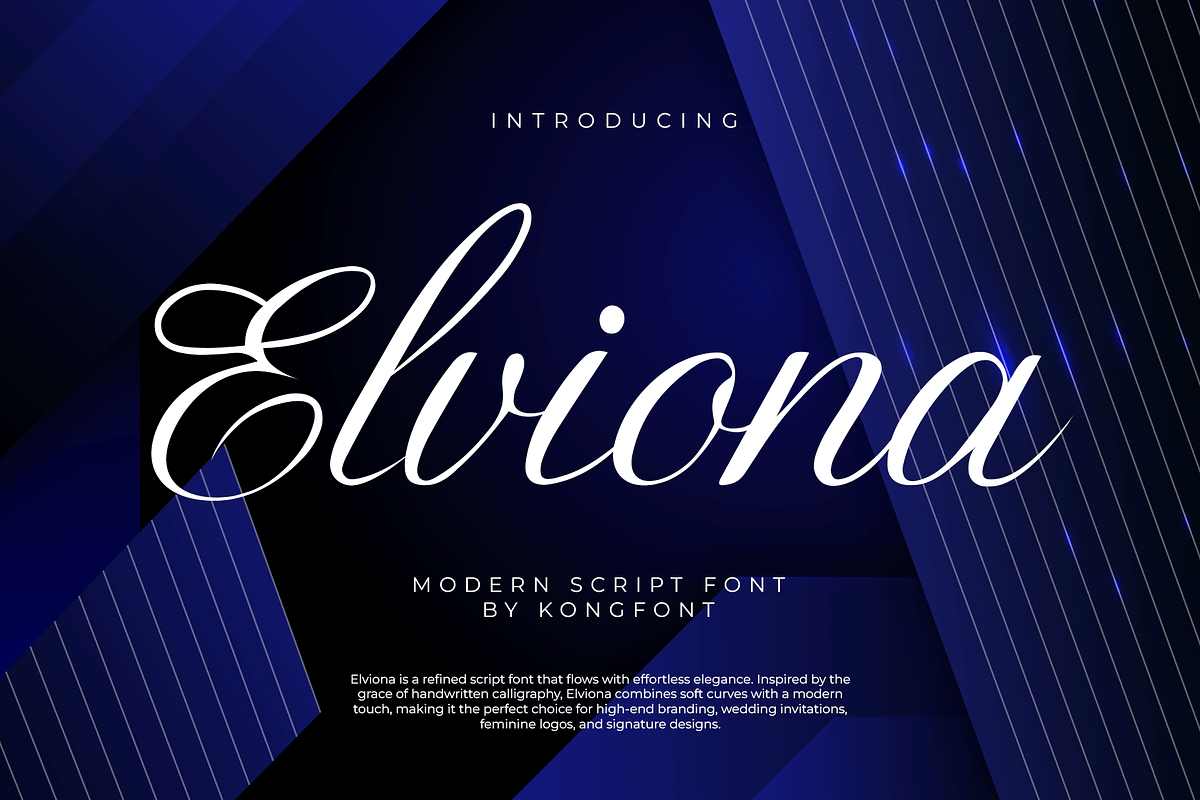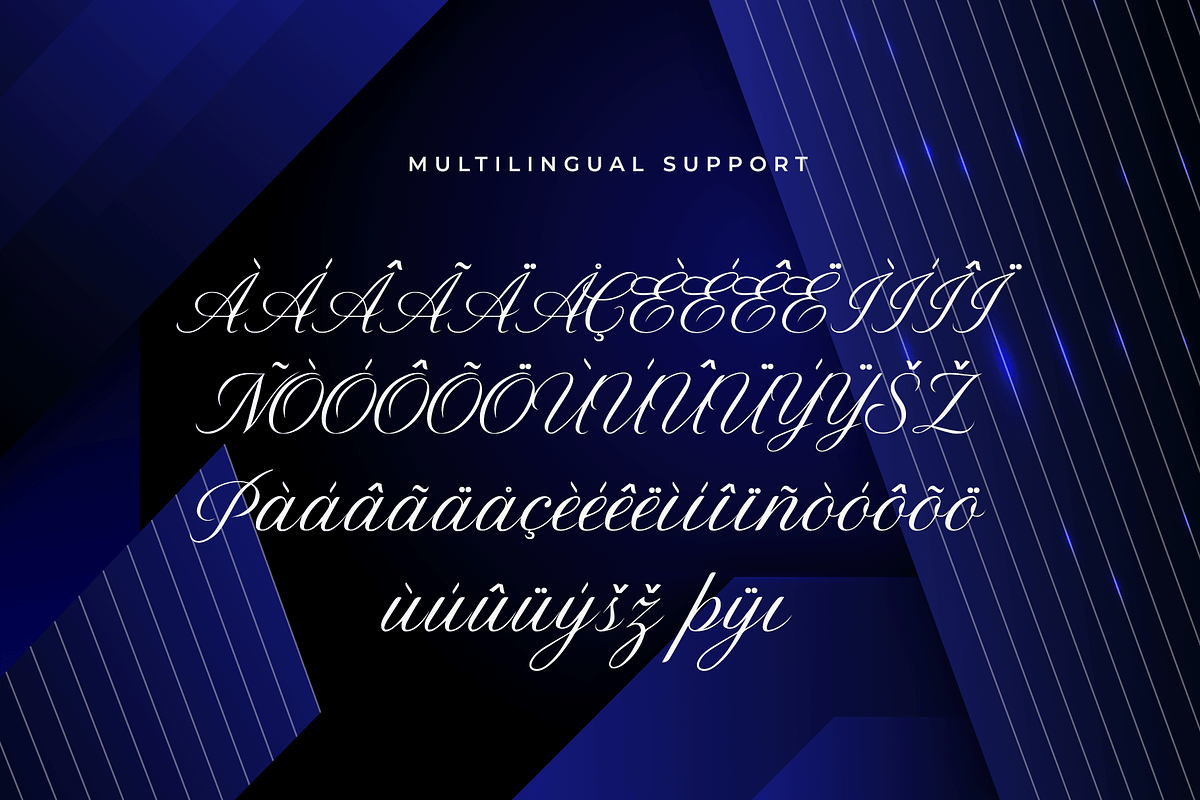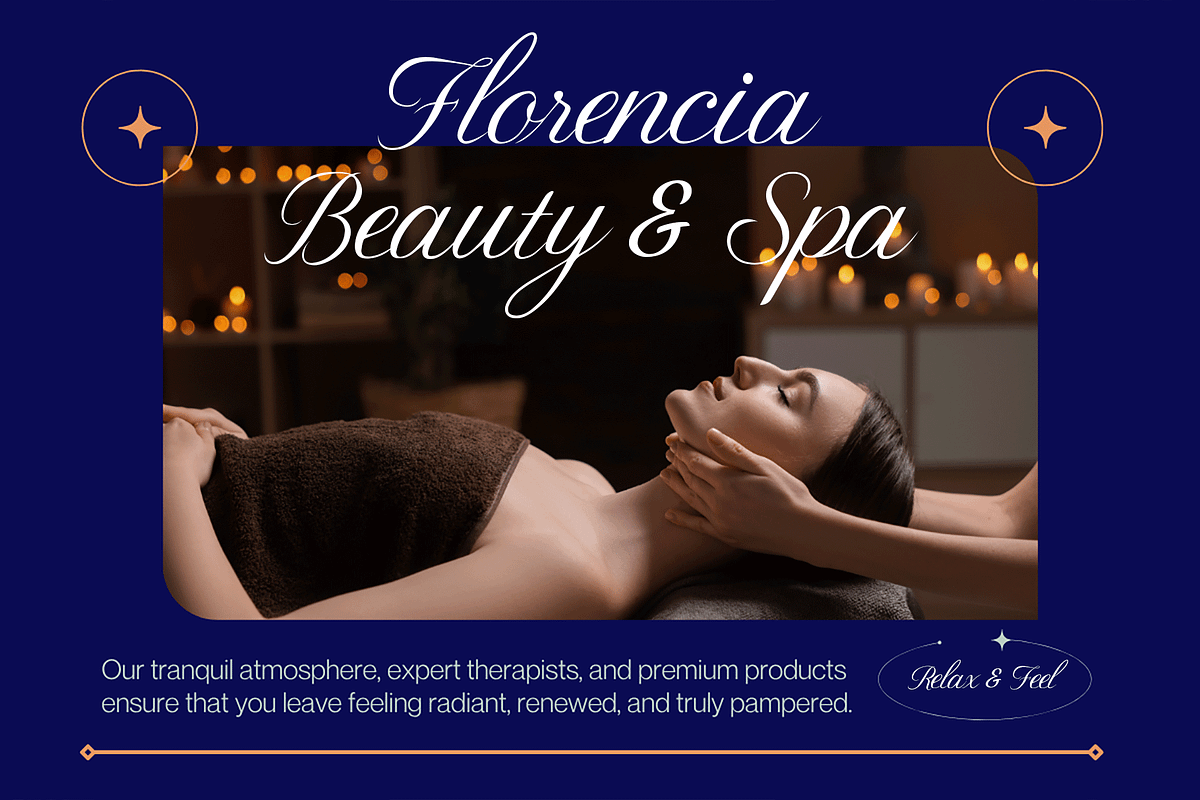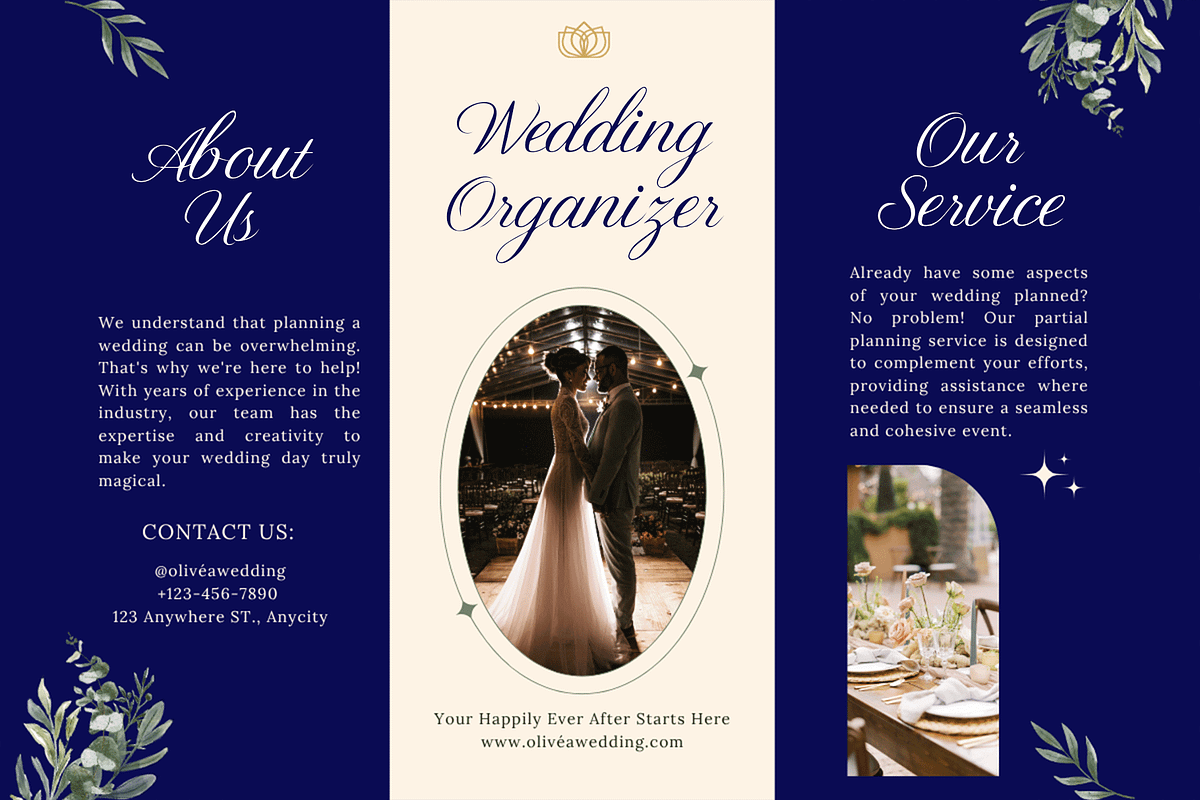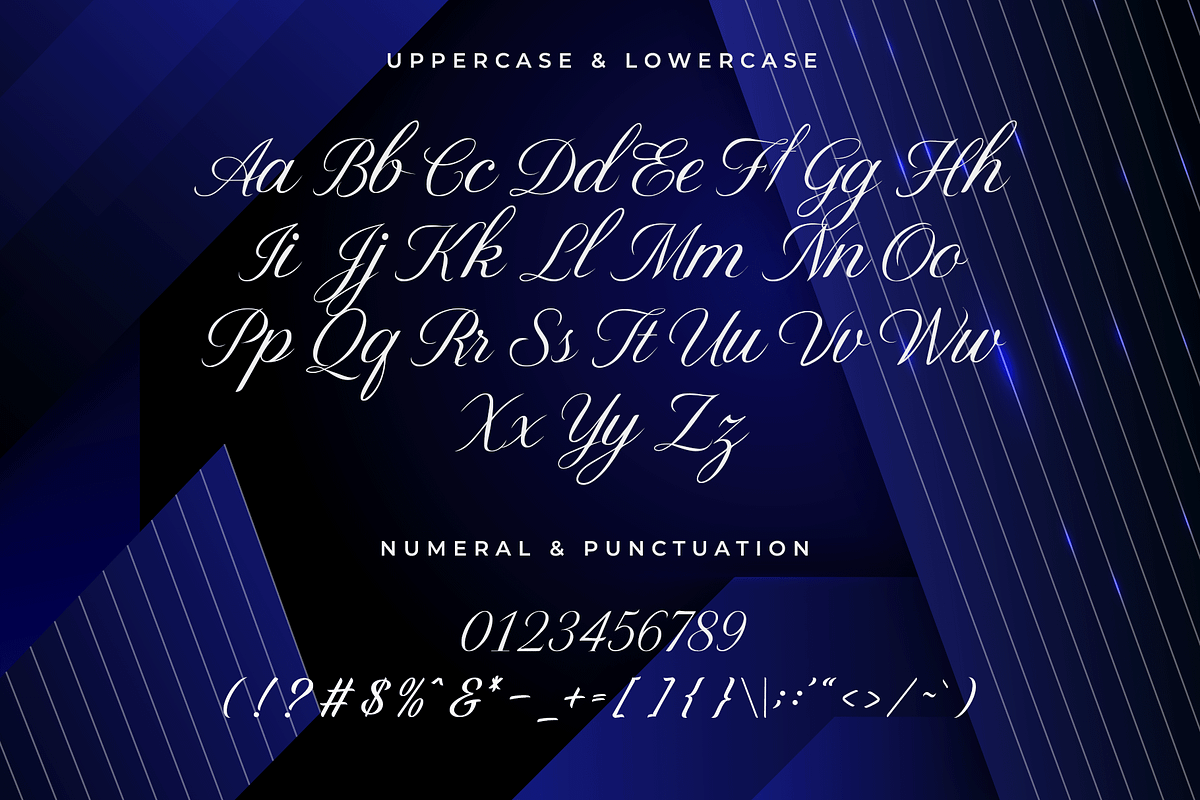
Elviona – A Modern Script Font
Say hello to Elviona, a modern script font that blends stylish flair with a touch of sophistication. Designed with flowing, handcrafted curves and delicate connections, Elviona is perfect for adding a personalized, elegant feel to your creative projects.
Ideal for wedding invitations, branding, social media posts, packaging, and quote designs, Elviona captures the essence of modern calligraphy with a contemporary twist. The font features smooth ligatures, graceful swashes, and full multilingual support, giving your work both charm and functionality.
Whether you're designing a logo or crafting heartfelt greetings, Elviona brings a unique and expressive character to every word.